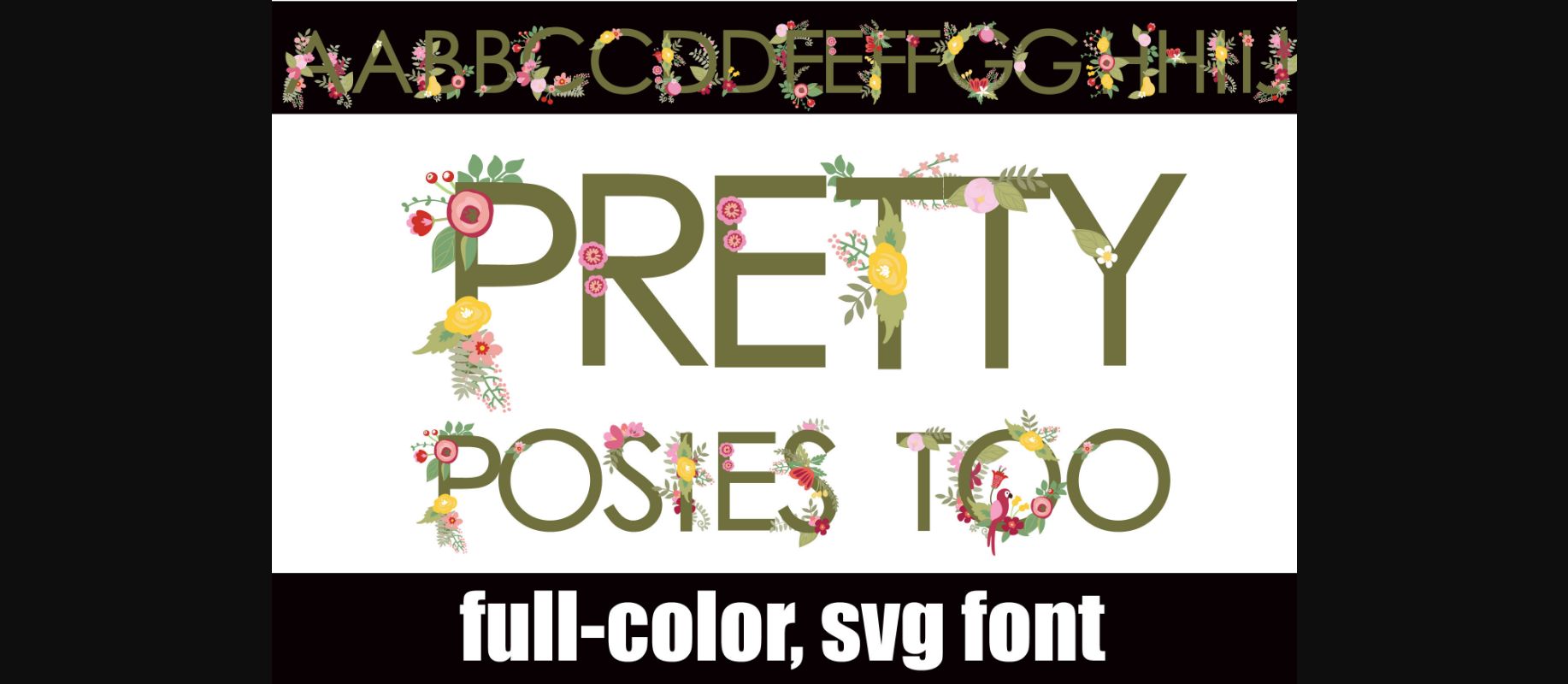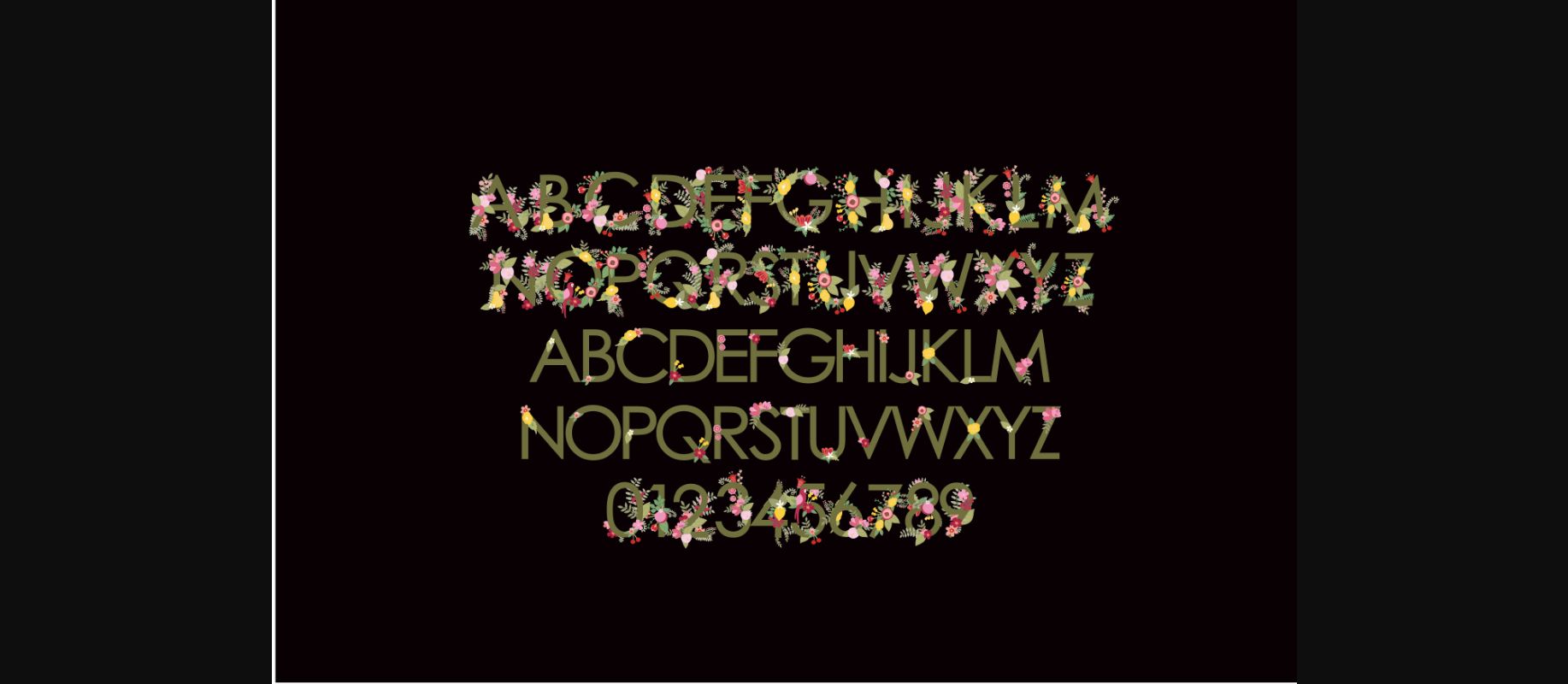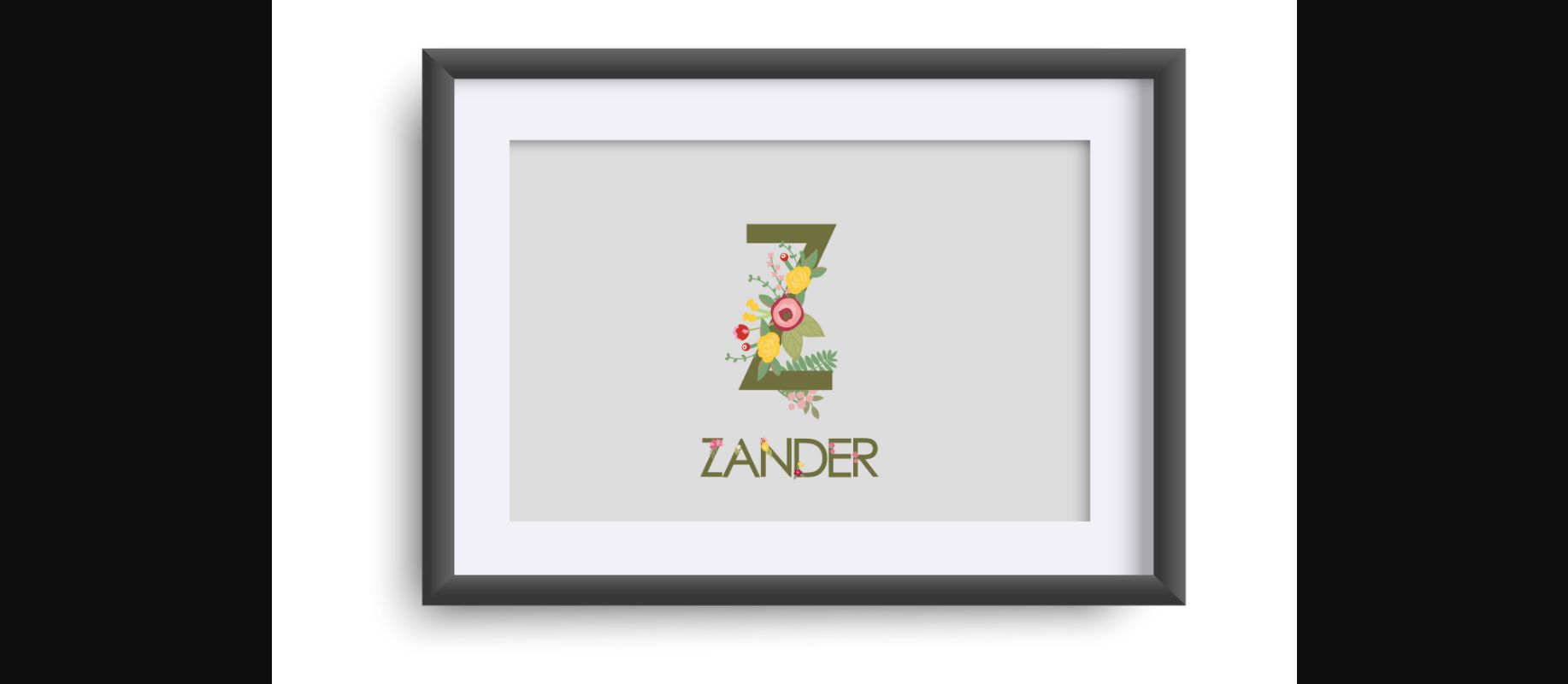
About Pretty Posies Too Font
Pretty Posies Too is a gorgeous flowery decorative font, that fits incredibly well to this time of the year. No matter the topic, this font will be an incredible asset to your fonts’ library, as it has the potential to elevate any creation.